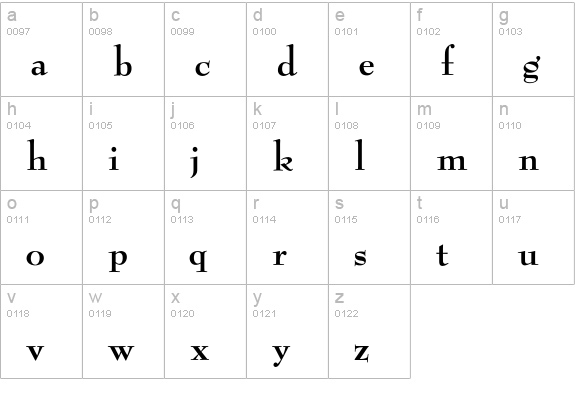
OPTIBenjieModern-Bold Font Details
OPTIBenjieModern-Bold is a strong, high-contrast variant in the OPTIBenjieModern typeface family \xE2\x80\x94 well suited to headlines, attention-grabbing titles, and strong calls-to-action.
OPTIBenjieModern-Bold is a sleek and modern font that exudes confidence and sophistication. Its bold weight makes it perfect for making a statement in headlines, titles, and branding materials. The clean lines and sharp edges give it a contemporary feel that is both eye-catching and professional. This versatile font is suitable for a wide range of design projects, from posters and flyers to websites and packaging. Its bold presence commands attention and ensures that your message is delivered with impact. Best of all, OPTIBenjieModern-Bold is available for free download at FontsMarket.com. This means you can easily add this stylish font to your collection without any cost, making it a valuable resource for designers, creatives, and anyone looking to elevate their projects with a high-quality typeface. Don't miss out on the opportunity to enhance your designs with the bold and modern aesthetic of OPTIBenjieModern-Bold.